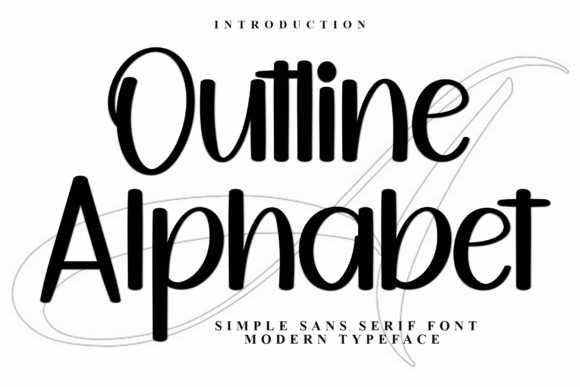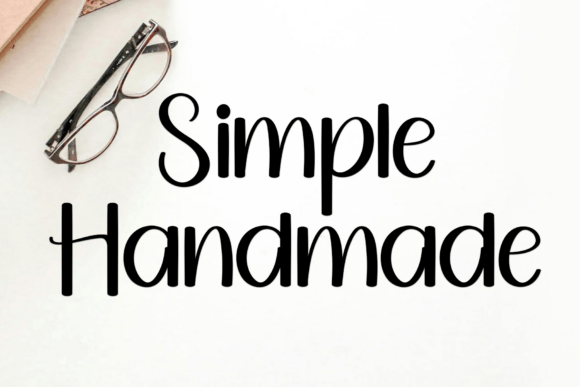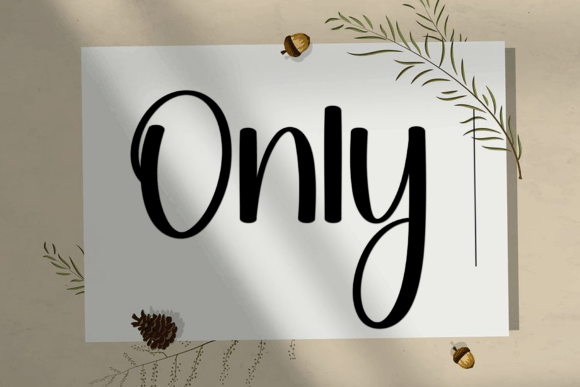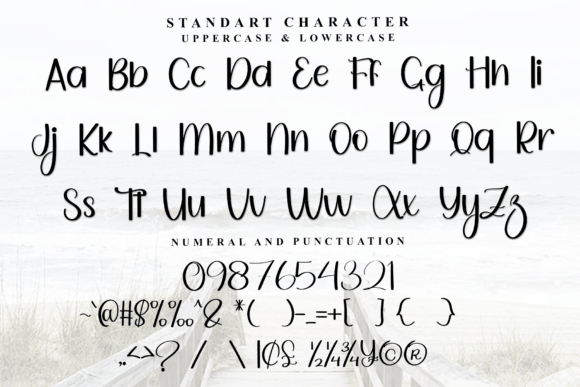
Outline Alphabet Font
About the Outline Alphabet Font
Get ready to be inspired by Outline Alphabet Font, a fresh and dynamic typeface for modern creators. Outline Alphabet is a festive and merry typeface that captures the spirit of the holiday season. With its decorative elements and whimsical flair, it adds a touch of enchantment to your designs. Perfect for greeting cards, gift tags, and holiday-themed projects, this font brings a cheerful and nostalgic ambiance to your words. Let your typography shine with the magic of Beautiful Font!
Outline Alphabet’s playful, decorative style shines in headlines, short text blocks on posters, and festive branding applications like packaging or social media graphics. It’s less suitable for body text or UI elements where readability is paramount; its intricate details can hinder legibility in longer passages.
This font pairs well with clean sans-serif fonts like Open Sans or Lato for a balanced contrast, providing readability where Outline Alphabet offers visual interest. For a more whimsical feel, consider pairing it with a script font such as Great Vibes, but use it sparingly to avoid overwhelming the design.
The overall personality is cheerful and nostalgic, best suited for brands aiming for a lighthearted and celebratory feel, particularly in the food, beverage, or entertainment industries. Avoid using it for projects requiring a serious or sophisticated tone.
Outline Alphabet Font Usage Examples
Outline Alphabet Font Example